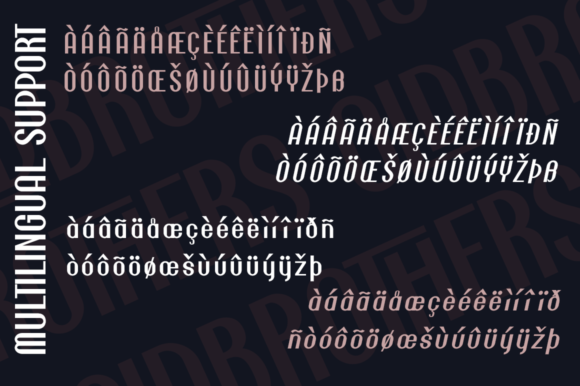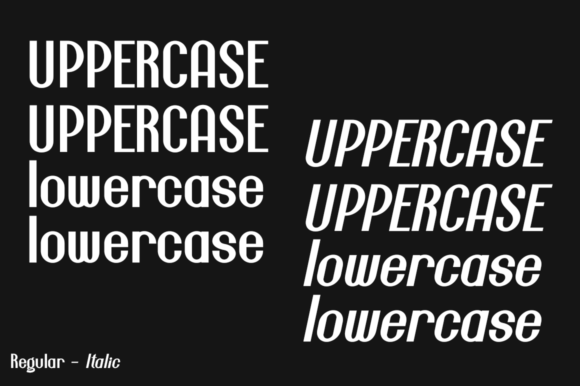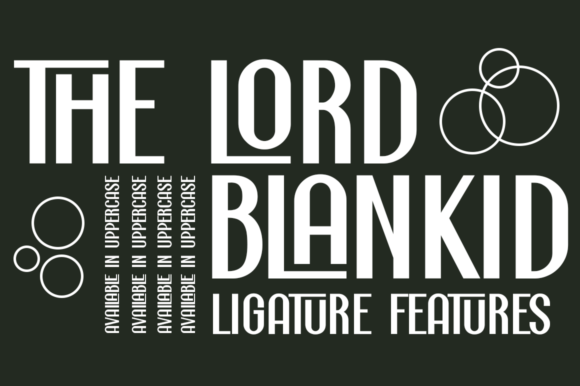
Introduction to Old Brothers Font
Old Brothers is a simple lettered, bold display font.
Masterfully designed to become a true favorite, this font has the potential to bring each of your creative ideas to the highest level .
Key Features of Old Brothers Font
Why Choose Old Brothers Font?